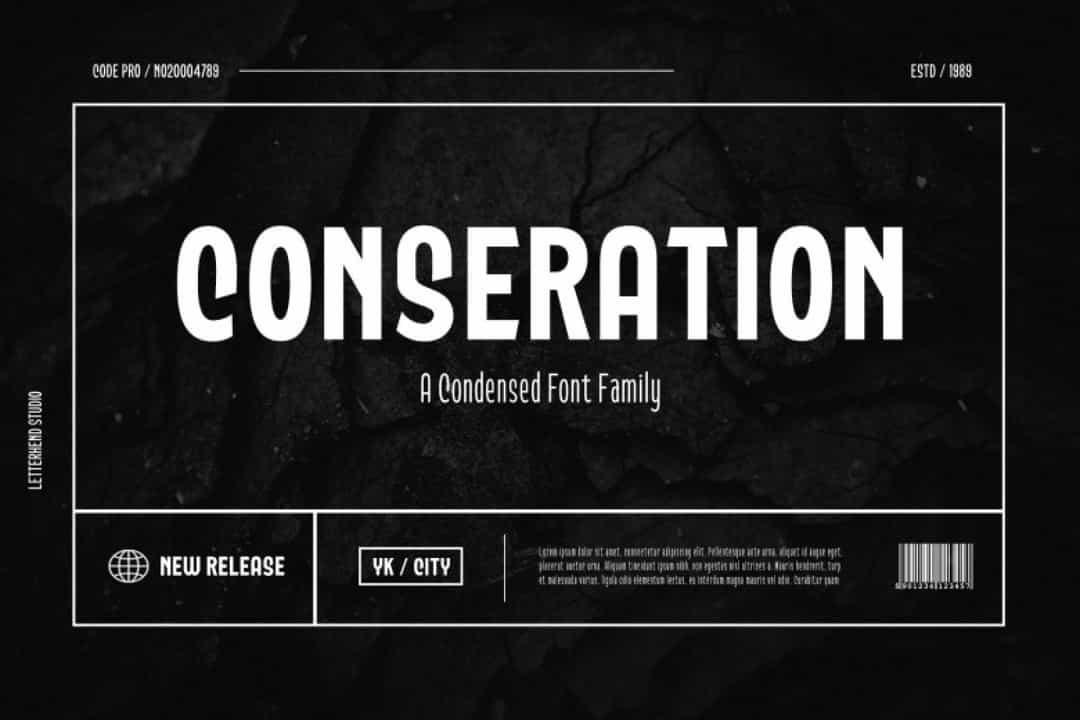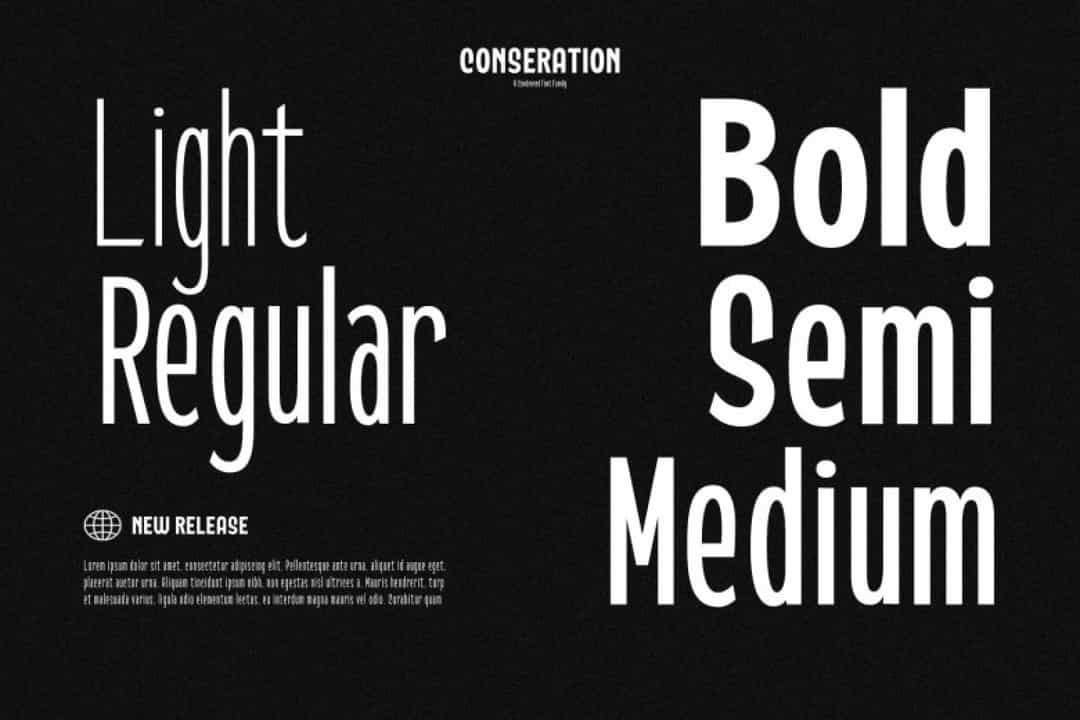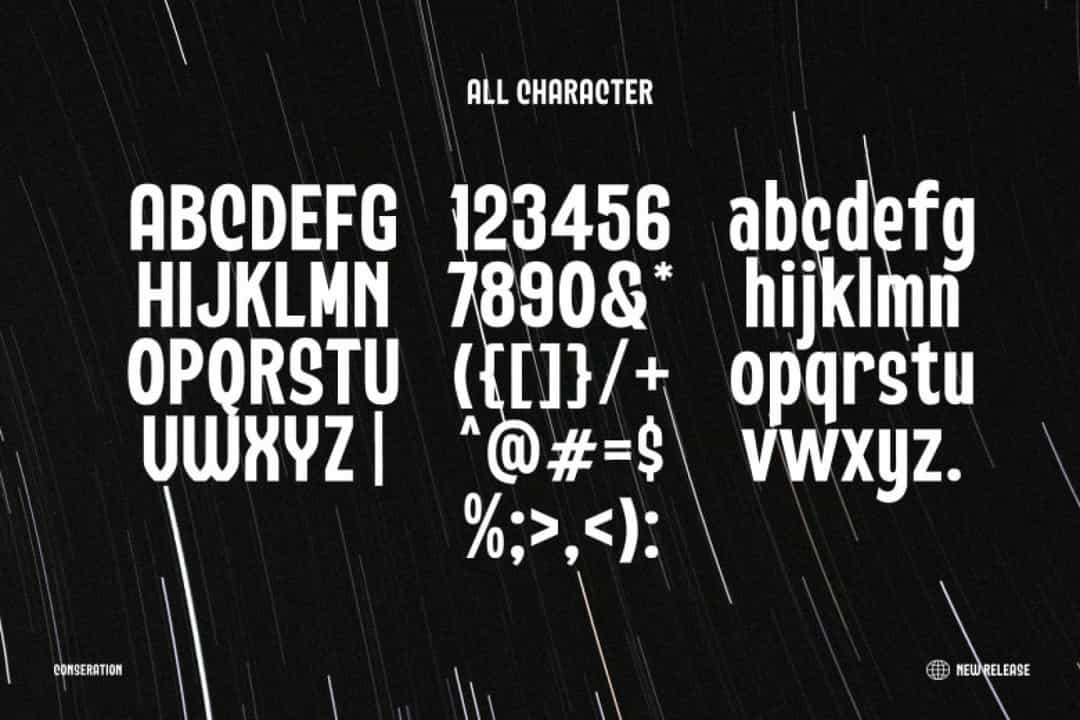
Conseration Sans Serif Font is a family of condensed fonts designed specifically to meet condensed font requirements. Available in five styles (regular/light, bold/bold semi/medium and medium), you can tailor it according to your specific requirements for elegance as well as entertainment and fun simultaneously.